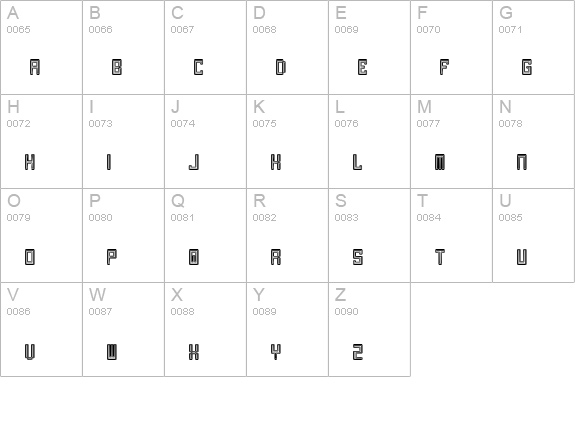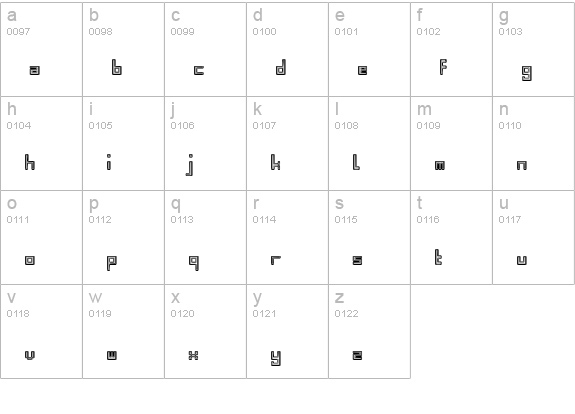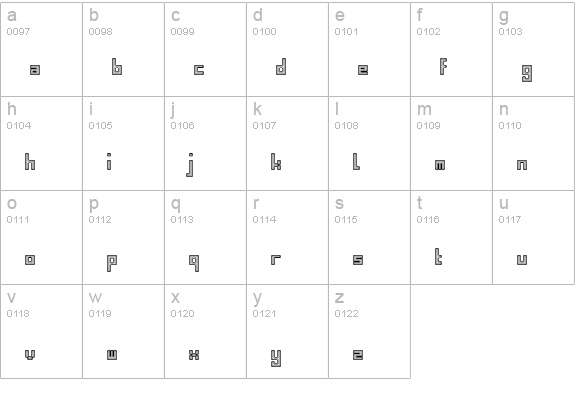
Bevel Fifteen Regular Font Details
Bevel Fifteen Regular is the standard, neutral variant in the Bevel typeface family \xE2\x80\x94 well suited to general body text, paragraphs, and standard typographic work.
Bevel Fifteen Regular font is a stylish and versatile typeface that exudes sophistication and elegance. Its clean lines and subtle beveled edges give it a unique and modern look that is perfect for a wide range of design projects. Whether you're creating logos, posters, invitations, or any other creative work, Bevel Fifteen Regular font is sure to make a statement. This font is available for free download at FontsMarket.com, making it accessible to anyone looking to add a touch of class to their designs. With its sleek design and professional aesthetic, Bevel Fifteen Regular font is a must-have for any designer seeking to elevate their work to the next level. Download it today and see the difference it can make in your projects!